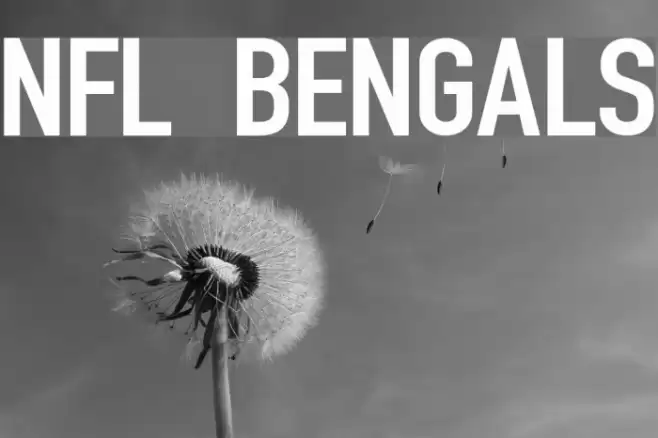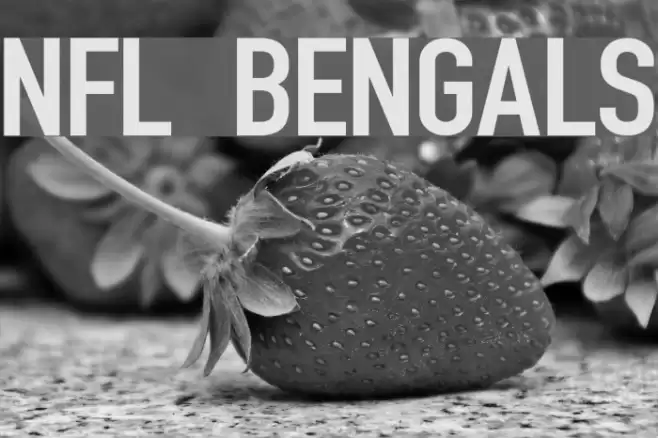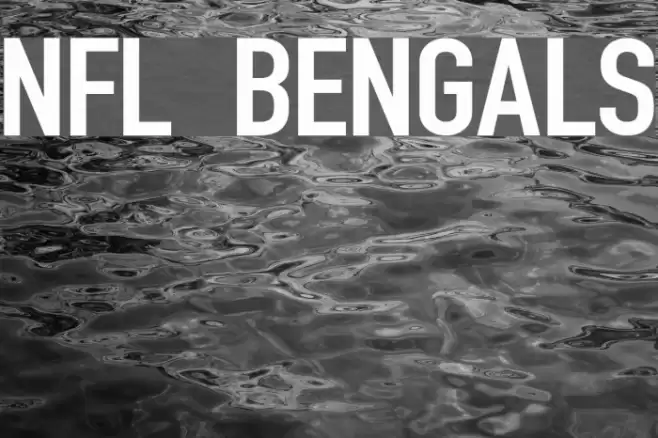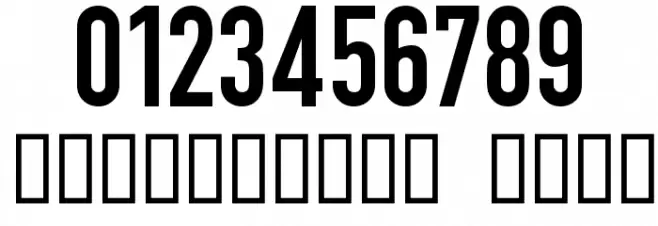
NFL Bengals Font
NFL Bengals Description
This font features a bold and robust design, characterized by its strong geometric shapes and clean lines. The uppercase letters are uniform in height, creating a cohesive and structured appearance. The numerals are equally bold, maintaining the font's overall strength and clarity. The lack of serifs gives it a modern and sleek look, suitable for a variety of applications. The spacing between characters is tight, enhancing its compact and impactful presence. This font is ideal for projects that require a strong visual impact and clear readability.
A bold, modern sans-serif font with strong geometric shapes and tight spacing from Uncategorized fonts.
- Proposed Projects: Ideal for sports branding, headlines, posters, and logos requiring a strong visual impact.
- Character Spacing: Tight